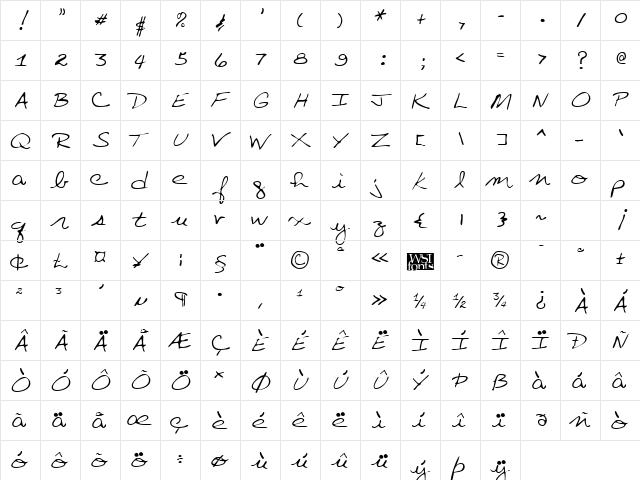
KaspersHand Regular
Design Context for KaspersHand Typeface
KaspersHand flows with the natural rhythm of handwritten lettering, making it ideal for designs that call for warmth and personal expression.
Font Pairing: Combine KaspersHand with a simple geometric sans for maximum contrast — the tension between flowing curves and clean structure is a classic typographic pairing.
Pro Tip: Use KaspersHand for short runs of text — names, titles, or taglines. Extended body copy in script faces tires the eye quickly.